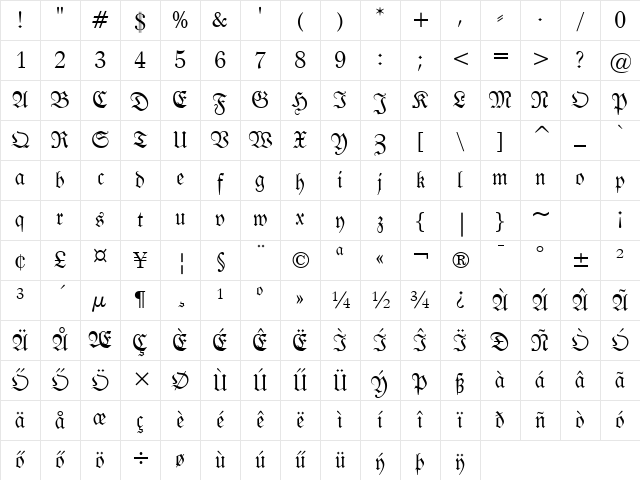
Fraktur HU Normal Free Font
Fraktur HU Normal
Design Context for Fraktur HU
Fraktur HU draws on the rich tradition of blackletter calligraphy, with dense, angular strokes that evoke medieval manuscripts and old-world craftsmanship.
Font Pairing: Pair with a clean neutral sans-serif for body copy to let Fraktur HU's character lead without overwhelming the composition.
Pro Tip: Reserve Fraktur HU for display and logo use - pair it with a clean sans-serif for body copy to prevent the composition from feeling oppressive.